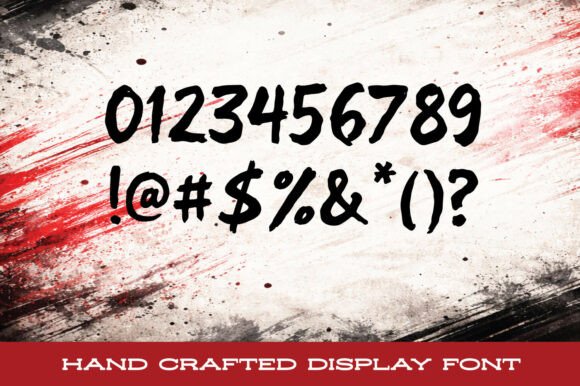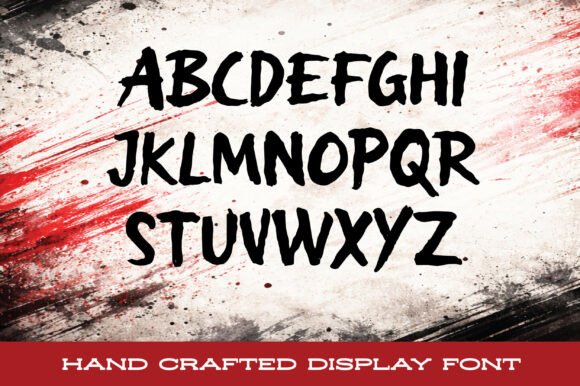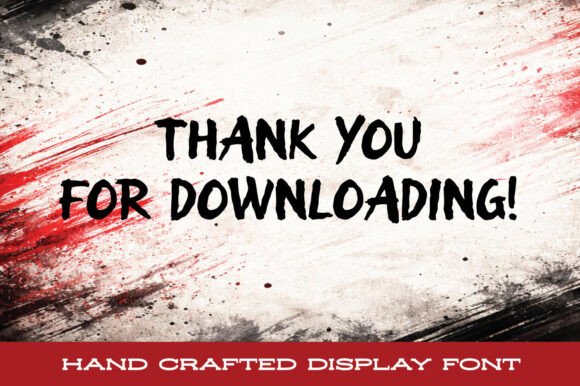
Unleash Your Creativity with Blunt Force Font: The Ultimate Choice for Bold Designs
In the world of typography, fonts play a crucial role in conveying the tone and personality of a design. When it comes to creating bold, attention-grabbing visuals, a font that packs a punch is essential. This is where Blunt Force Font comes into play – a raw, high-impact brush font designed to make a lasting impression. With its thick, uneven strokes and aggressive edges, Blunt Force is the perfect choice for designers who want to add a touch of grit and attitude to their work.
The Raw Power of Blunt Force Font
Blunt Force Font is built for designs that need to hit hard and leave a mark. Its rugged, hand-painted feel is characterized by thick, uneven strokes and aggressive edges, giving it a powerful, unapologetic look. This font is not for the faint of heart – it’s designed to thrive in loud environments, making it perfect for posters, album art, streetwear graphics, branding, packaging, and statement typography.
When paired with a gritty, paint-slashed background, Blunt Force Font comes alive. The combination of the font’s raw texture and the background’s rough, distressed look creates a visually striking effect that’s sure to grab attention. Whether you’re designing a bold poster or a statement piece of packaging, Blunt Force Font is the perfect choice for adding a touch of edginess to your work.
The Benefits of Using Blunt Force Font
So, what makes Blunt Force Font so special? Here are just a few benefits of using this powerful font in your designs:
- Handmade feel: Blunt Force Font has a distinctly handmade feel, with a texture that’s reminiscent of paint dragged fast across a rough surface. This gives your designs a unique, human touch that’s hard to replicate with more polished fonts.
- Physical, forceful look: The font’s thick, uneven strokes and aggressive edges give it a physical, forceful look that’s perfect for designs that need to pack a punch.
- Visceral, expressive, and full of attitude: Blunt Force Font is not a subtle font – it’s designed to be bold, expressive, and full of attitude. Whether you’re designing a poster, a logo, or a piece of packaging, this font is sure to make a statement.
When to Use Blunt Force Font
So, when should you use Blunt Force Font in your designs? Here are a few scenarios where this font is the perfect choice:
- Posters and flyers: Whether you’re promoting a concert, a sale, or a social event, Blunt Force Font is the perfect choice for creating bold, attention-grabbing posters and flyers.
- Album art and music branding: If you’re a musician or a music designer, Blunt Force Font is a great choice for creating bold, eye-catching album art and music branding.
- Streetwear graphics and apparel: The font’s bold, edgy look makes it a great choice for streetwear graphics and apparel.
- Packaging and branding: Whether you’re designing a new product or rebranding an existing one, Blunt Force Font is a great choice for creating bold, attention-grabbing packaging and branding.
Tips for Using Blunt Force Font
Here are a few tips for getting the most out of Blunt Force Font:
- Pair it with a gritty background: To really make Blunt Force Font shine, pair it with a gritty, paint-slashed background. This will help to enhance the font’s raw, textured look.
- Experiment with different colors: Blunt Force Font looks great in a variety of colors, so don’t be afraid to experiment and find the perfect hue for your design.
- Use it sparingly: While Blunt Force Font is bold and attention-grabbing, it can also be overwhelming if used too much. Use it sparingly to create a focal point in your design.
In conclusion, Blunt Force Font is a powerful, high-impact brush font that’s perfect for designers who want to add a touch of grit and attitude to their work. With its raw, handmade feel and bold, expressive look, this font is sure to make a lasting impression. Whether you’re designing a poster, a piece of packaging, or a statement piece of typography, Blunt Force Font is the perfect choice for creating bold, attention-grabbing visuals.